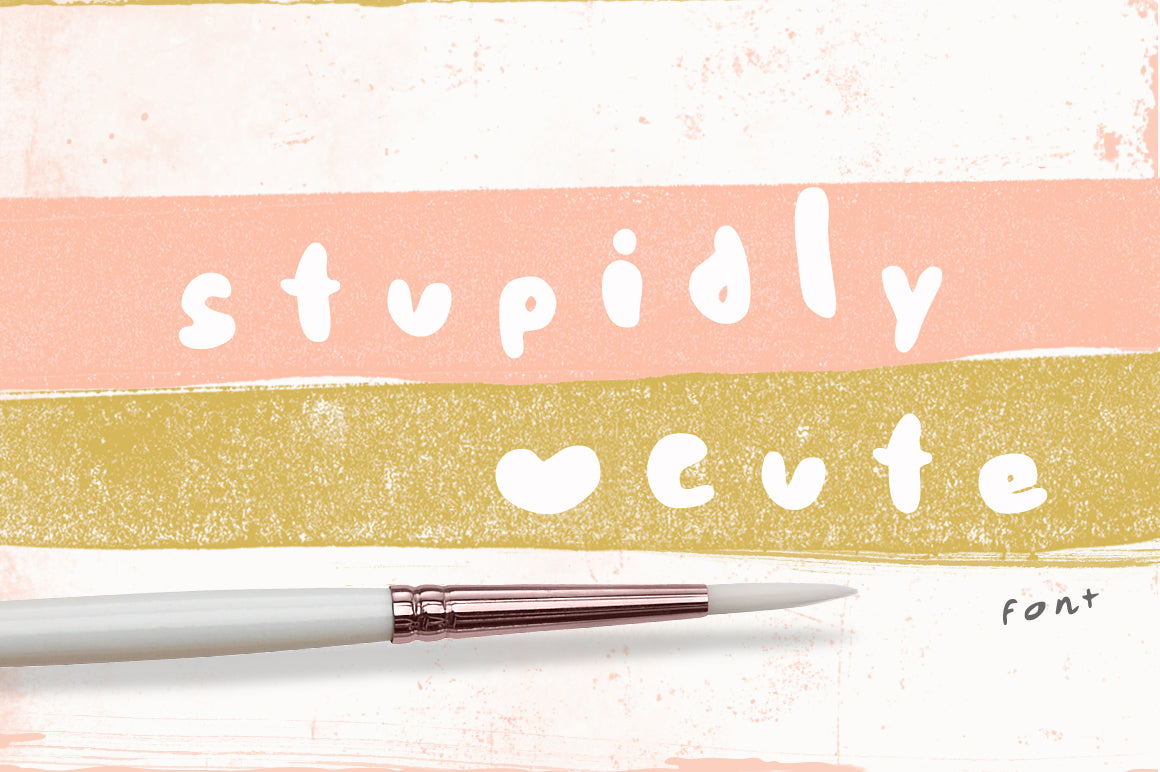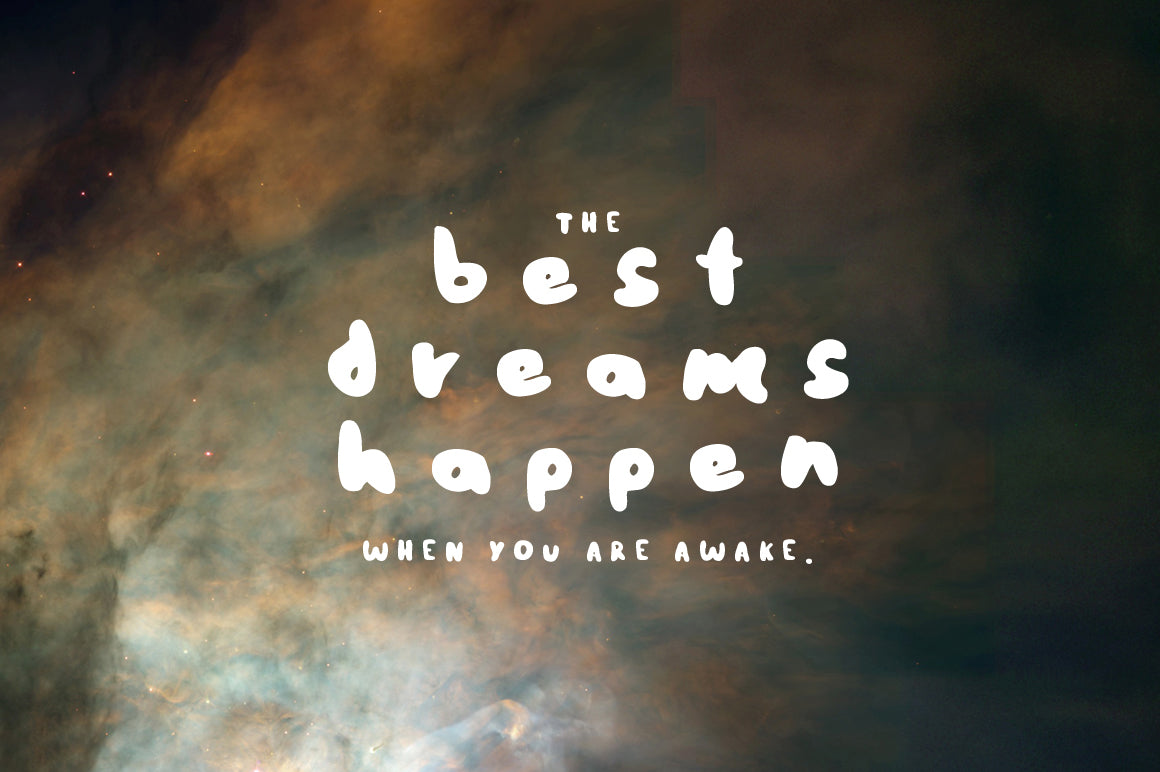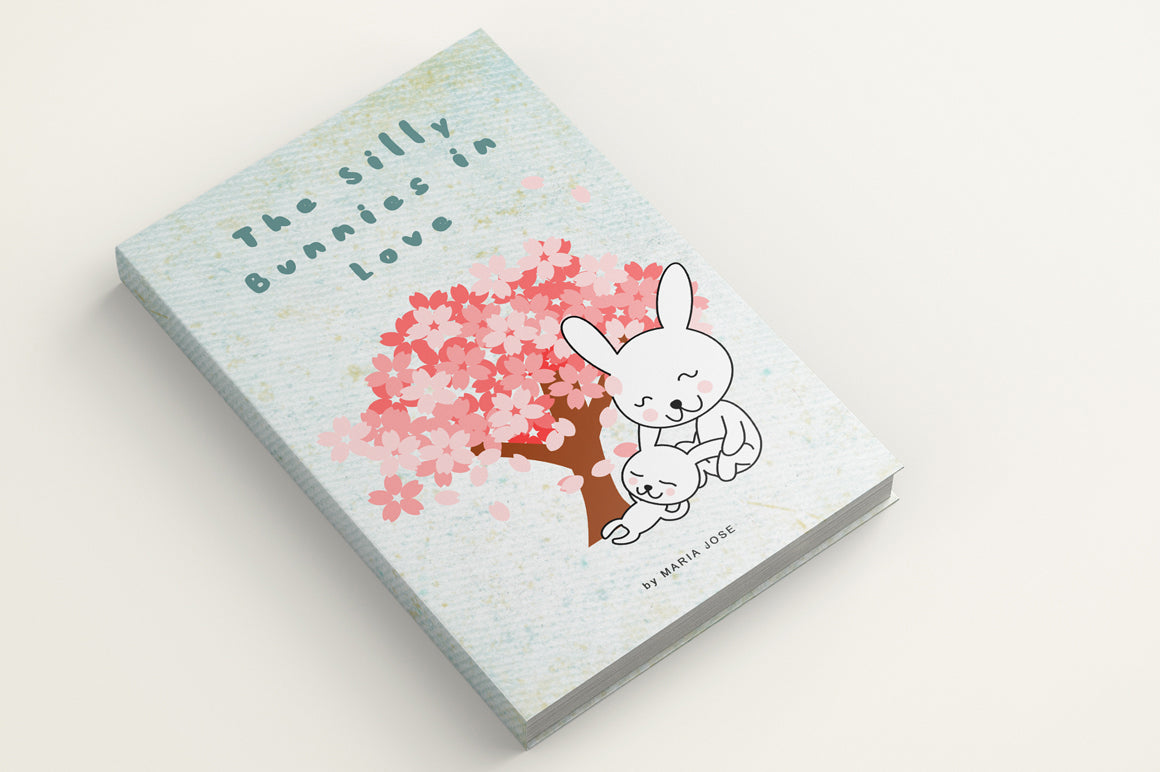
Stupidly Cute Font
Stupidly Cute is a hand-painted brush font that’s as adorable as it sounds! This cursive font features playful, bold strokes with a fun, girly vibe. Its handwritten look makes it perfect for designs that need a cute and carefree touch. Whether you're working on projects for a fun brand, a personal blog, or something that simply needs that extra bit of charm, this typeface is sure to make your designs stand out.
Ideas for use
• Fun and flirty brand logos
• Invitations for baby showers or girls' events
• Social media graphics, especially for beauty, fashion, or lifestyle brands
• Greeting cards, posters, and digital art
• Product packaging for cute and quirky brands
• DIY projects like journals and scrapbooking